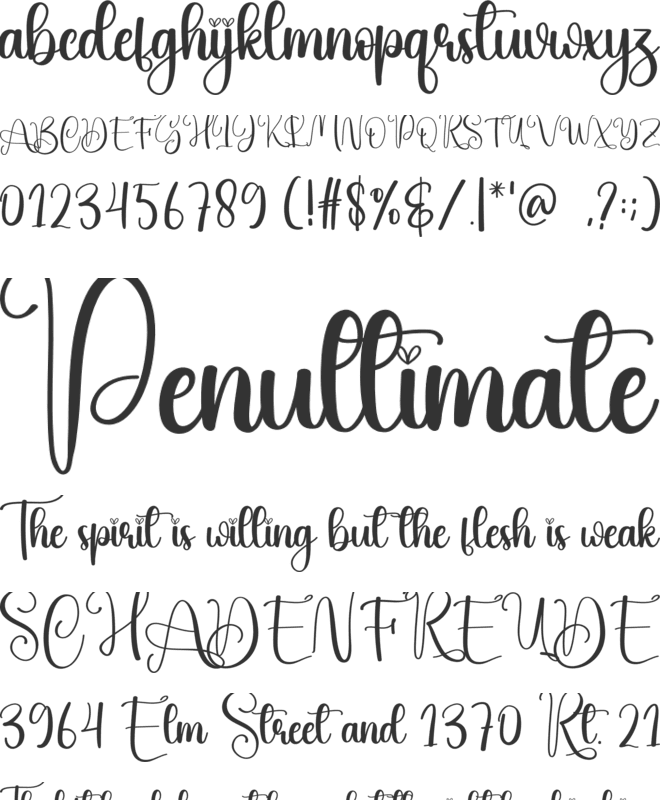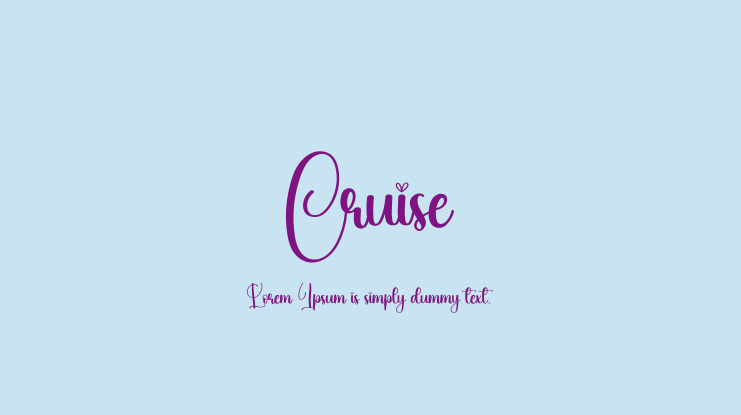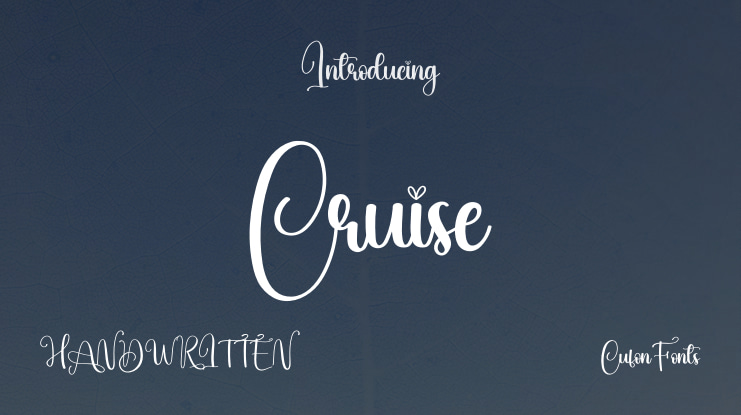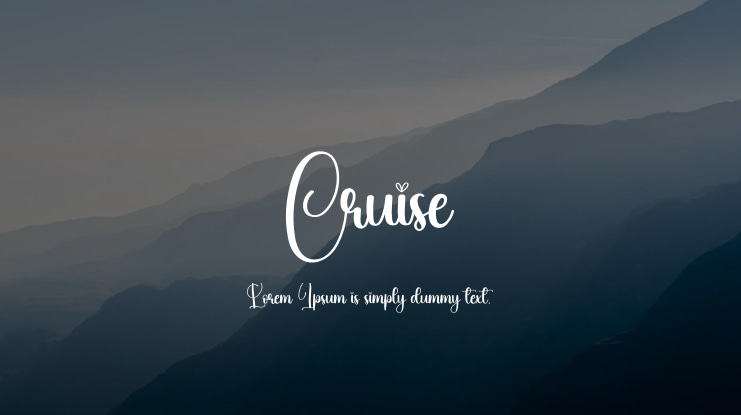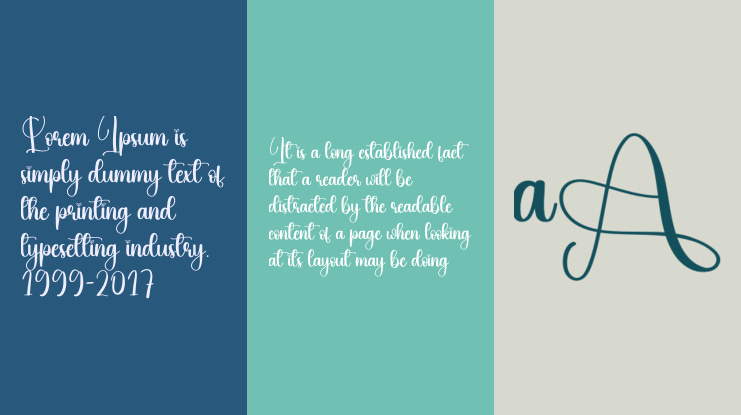
Cruise Font
Our latest stylish fonts are ideal for use in wall displays, wedding invitations, social media posts, logos, advertisements, product packaging, design projects, labels, photography, watermarks, invitations, stationery, and any other project that requires elegant handwriting.